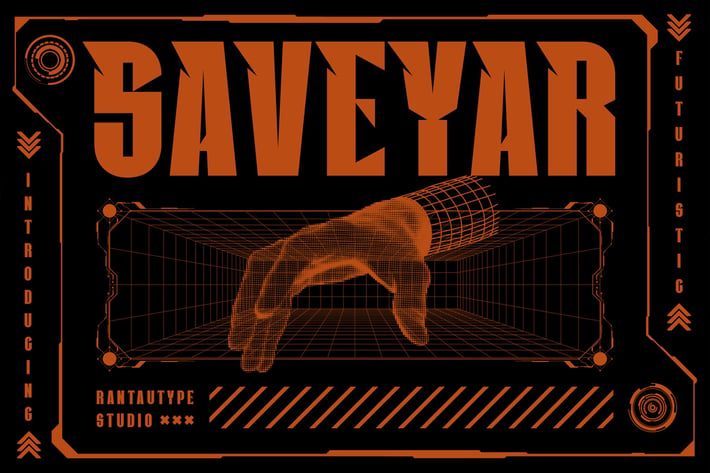
Saveyar A Futuristic Font
Saveyar is futuristic display font inspire by robotic, artificial intelligence and science fiction visual design. Strong and unique is suitable for this futuristic font, the shape can bring another world of technology potential design project more attractive and stand out!
Saveyar is a perfectly choice for any creative endeavor, chic, lifestyle design such as logos, advertisements, stationery, branding project, display and magazine, invitation, corporate brand, product design, label, business project and many other project with elegant touch.